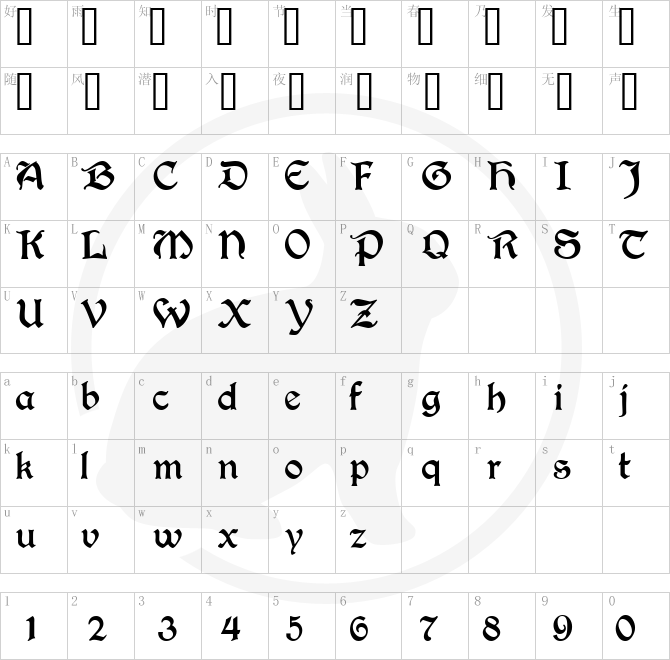
- Font Name:T4C Beaulieux
T4C-Beaulieux.ttf is a very beautiful artistic font, T4C-Beaulieux.ttf is widely used in the design and printing of various books and pictures,T4C-Beaulieux.ttf has a strong visual impact,T4C-Beaulieux.ttf is a commonly used font in newspapers, magazines and books, and is used in posters, e-commerce Poster design, store design, logo design, font design and other fields.T4C-Beaulieux.